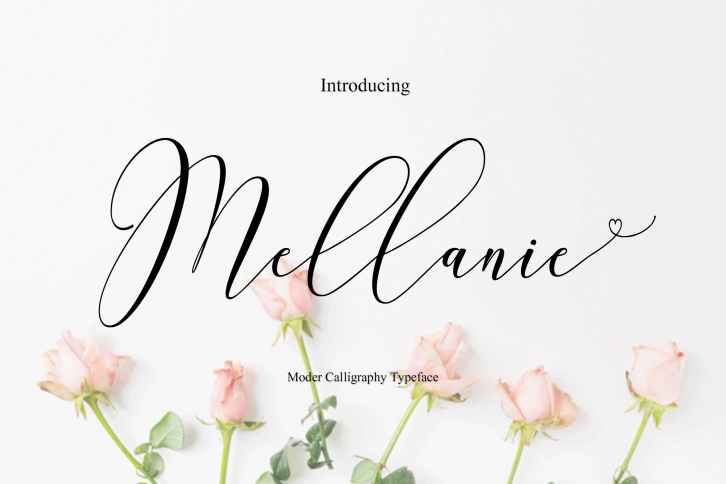
Mellanie is a gorgeous font that was realeased on August 22, 2019. The font can be used in many style contexts and design environments. Perfect for invitations, magazines, websites, logos, and more! It was designed by Naqsya and the file size is 18.5 MB. Thanks for checking out this font!